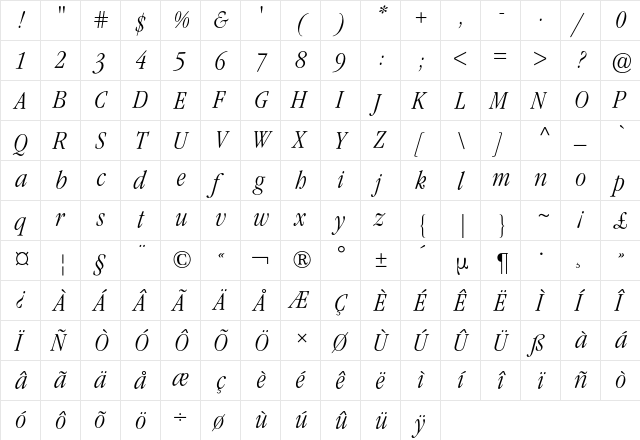
Garamond ITC Condensed BQ Regular Font Preview
Garamond ITC Condensed BQ Regular
Garamond ITC Condensed BQ Regular Font Details
Design Context for Garamond ITC Condensed BQ Typeface
Garamond ITC Condensed BQ takes a measured approach to typography — its balanced proportions and neutral character make it a reliable workhorse for both digital and print work. Its narrow stance lets it pack a punch even in space-constrained designs.
Pro Tip: Pair Garamond ITC Condensed BQ with a font of contrasting weight or personality to build a more expressive typographic hierarchy.